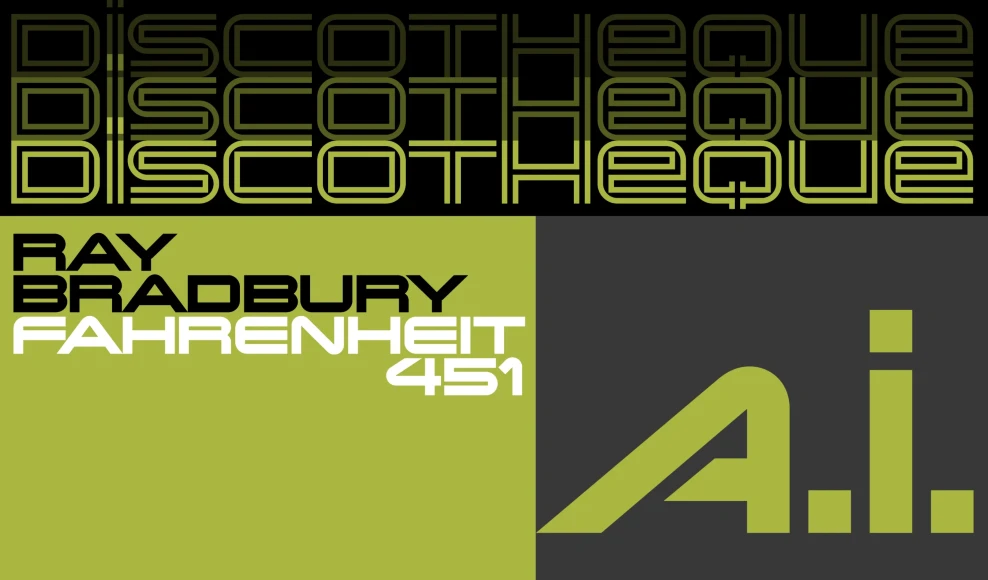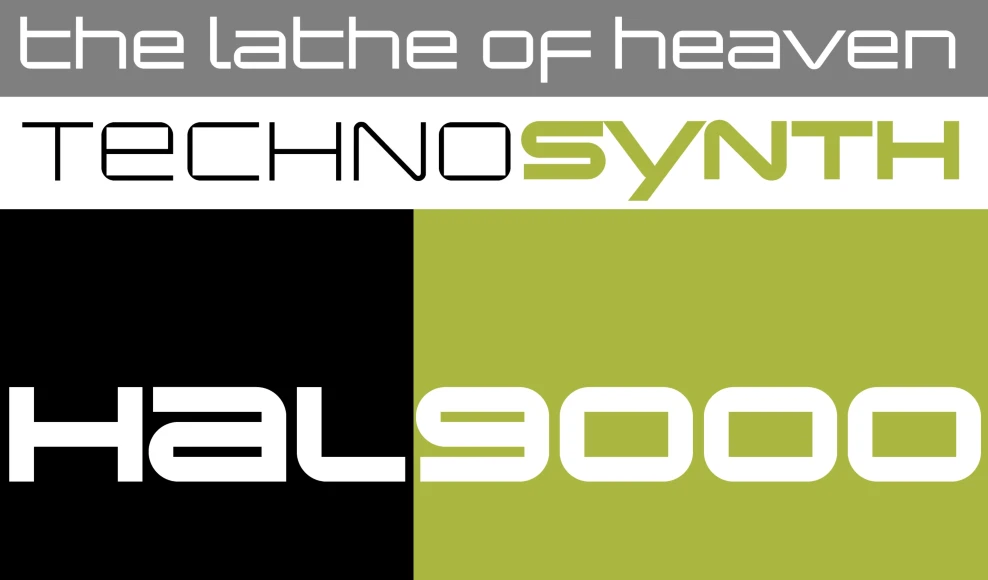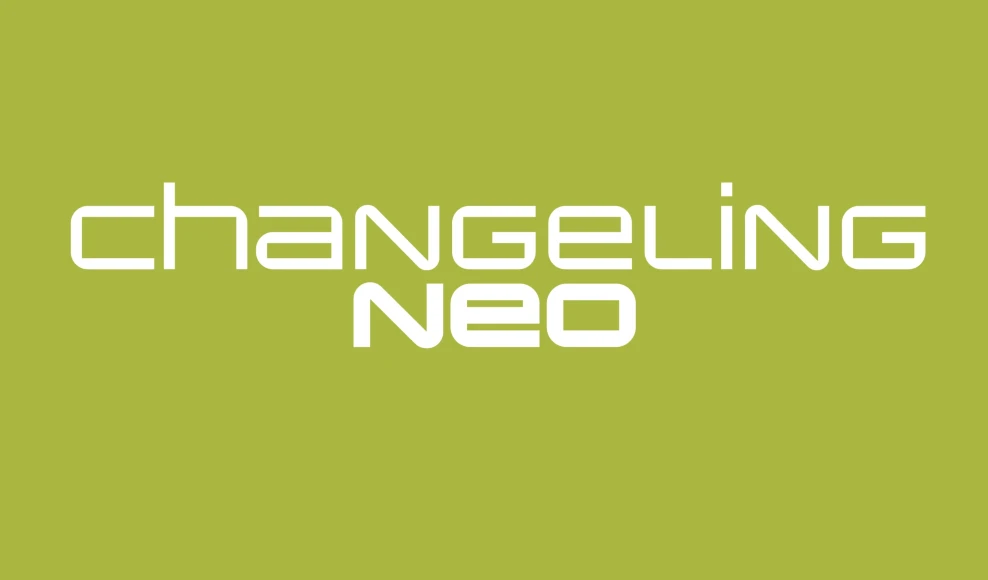
Changeling Neo
Changeling Neo Light
Changeling Neo Regular
Changeling Neo Bold
Changeling Neo Inline
Changeling Neo Stencil
Changeling Neo (2008, originally released as Changeling in 2003) is my redesign and expansion of China, a VGC Photo-Typositor face released 1975. China had only one weight (similar to Changeling Neo Bold) in all-caps with only a few alternate characters. In Changeling Neo, I redesigned many characters for better type color. I also added a complete set of lowercase-style variants, providing endless “unicase” combinations. I also added four more styles — Light, Regular, Stencil, and Inline.